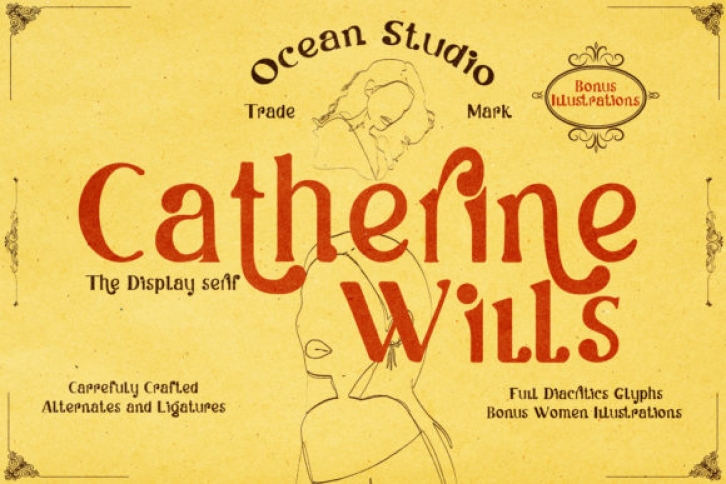
Catherine Wills is an elegant and unique serif font. It can easily be matched to an incredibly large set of projects, so add it to your creative ideas and notice how it makes them stand out!